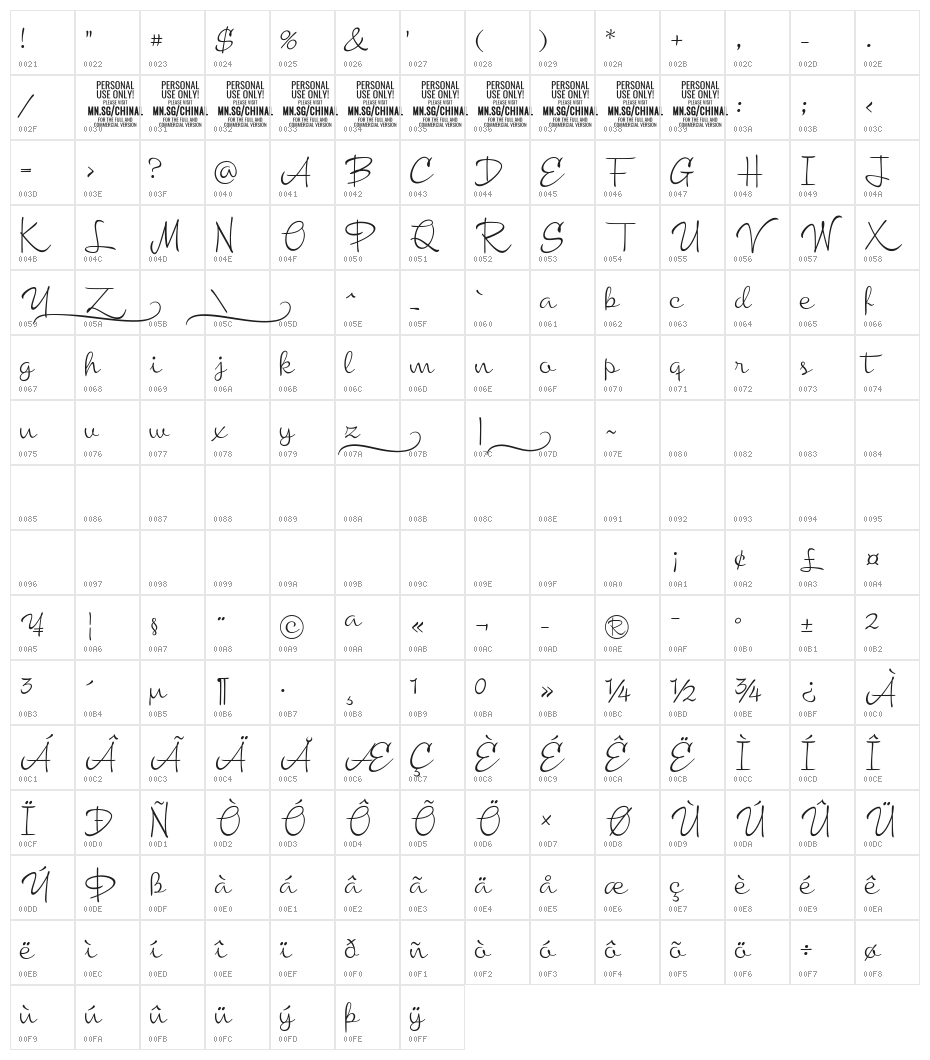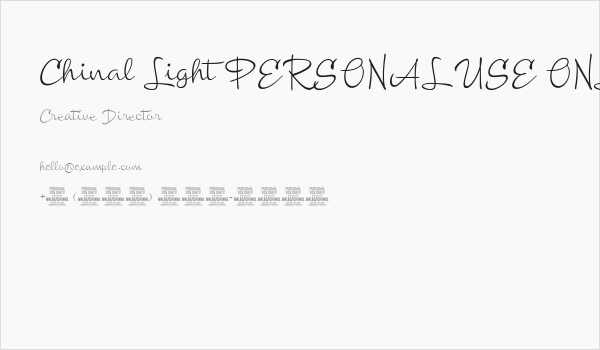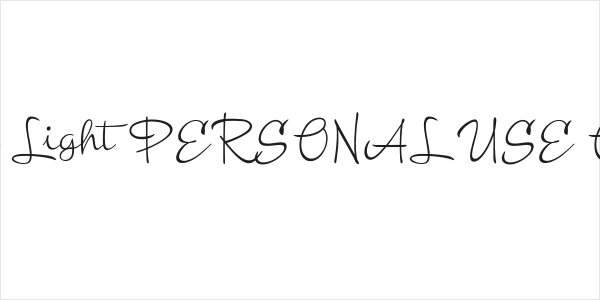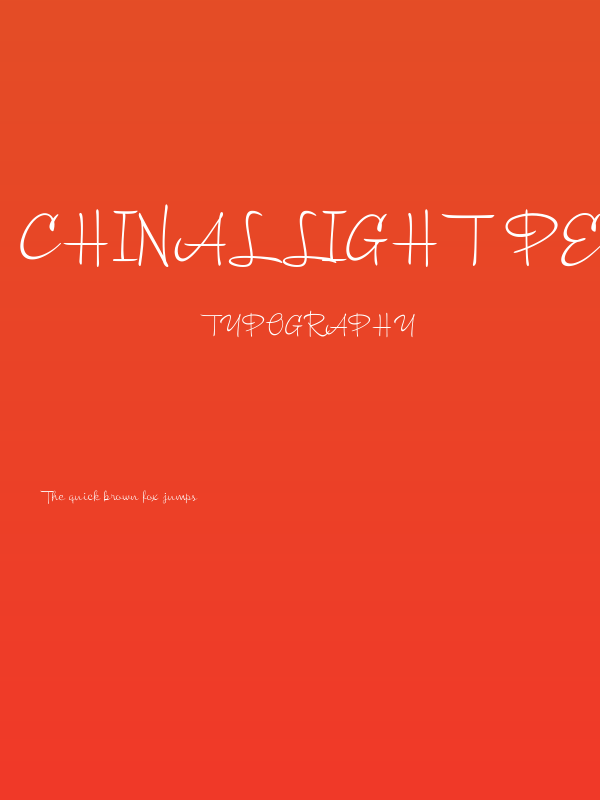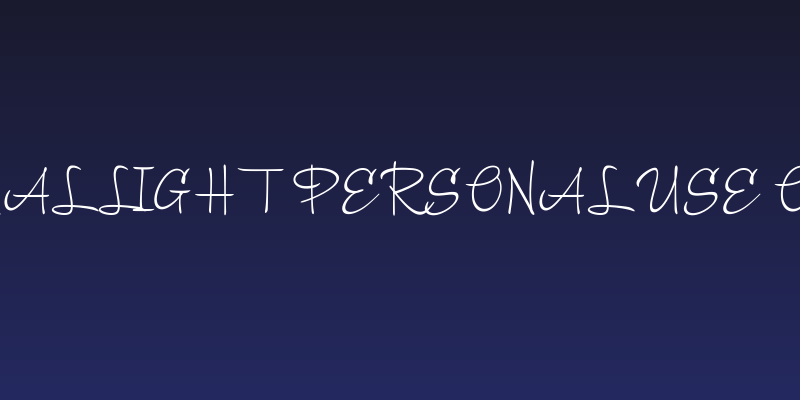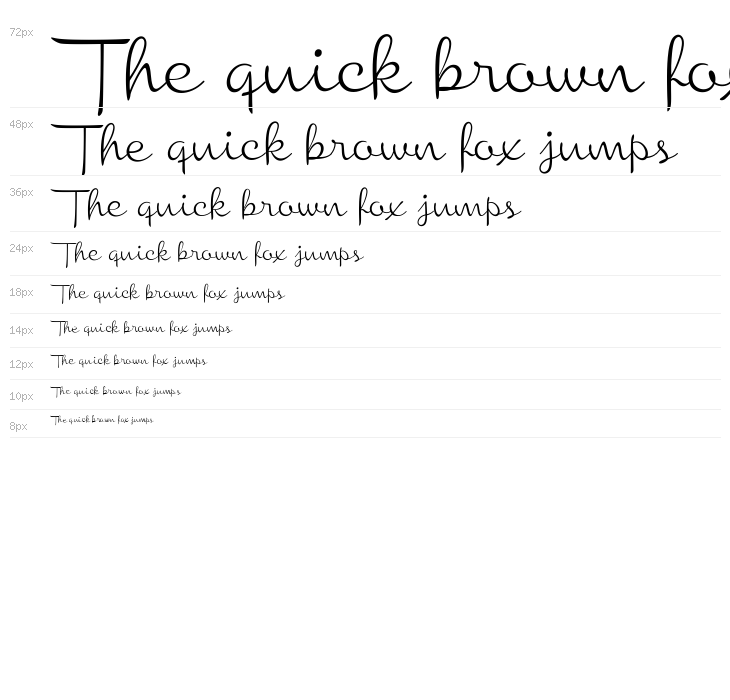
Chinal Light PERSONAL USE ONLY Font
Chinal Light PERSONAL USE ONLY Description
This font features a delicate and flowing script style, characterized by its elegant and fluid letterforms. The uppercase letters exhibit a graceful, cursive flair with smooth curves and subtle loops, while the lowercase letters maintain a consistent, handwritten appearance. The font's overall design is light and airy, making it suitable for projects that require a touch of sophistication and charm. The numerals and special characters are crafted with the same attention to detail, ensuring a cohesive look across all text elements.
| Overall Style | Elegant, Handwritten |
| Proposed Projects | Ideal for wedding invitations, greeting cards, personal branding, and elegant packaging designs. |